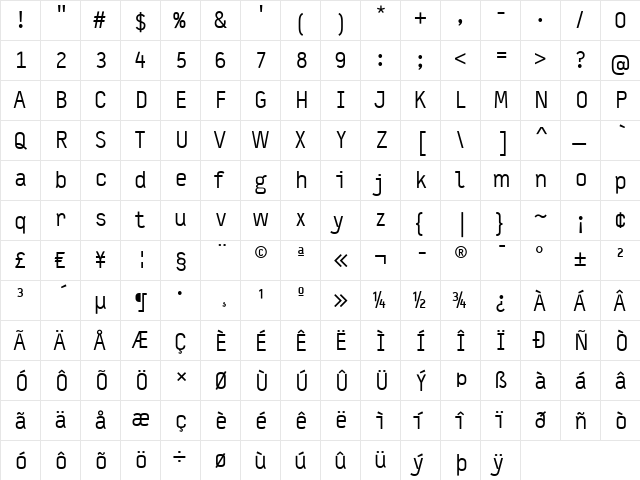
Typestar Regular
| Foundry | eBoy: Steffen Sauerteig, Kai Vermehr, . Published by FontShop International. FontFont Release |
Design Context for Typestar Typeface
Typestar takes a measured approach to typography — its balanced proportions and neutral character make it a reliable workhorse for both digital and print work.